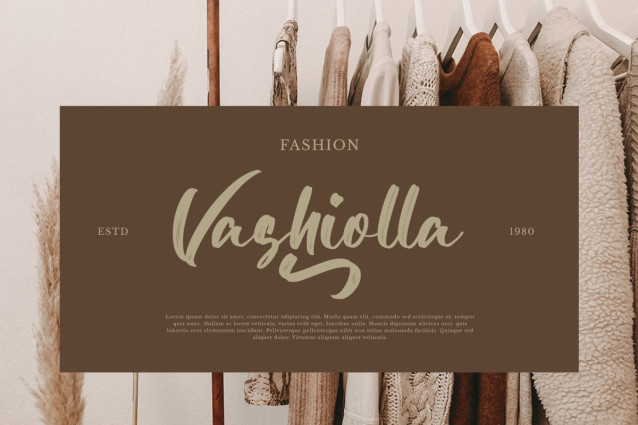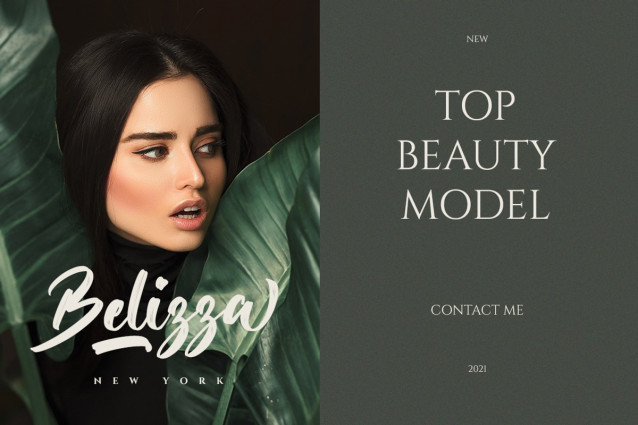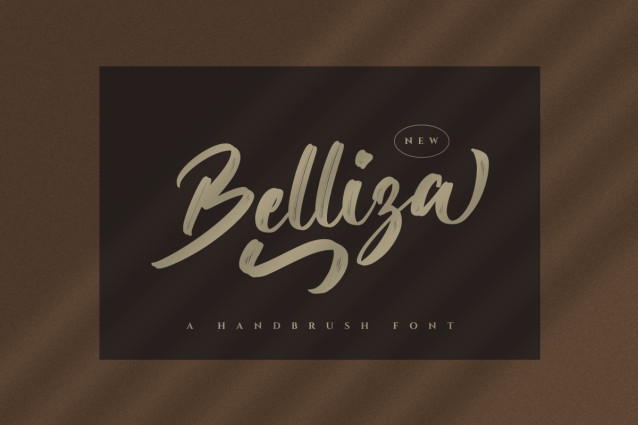
Belliza Brush Font
Belliza Brush Font is a natural handwritten brush font. It’s ideal for branding and decorating your projects, creating wedding invitations, book covers, marketing, and much more!